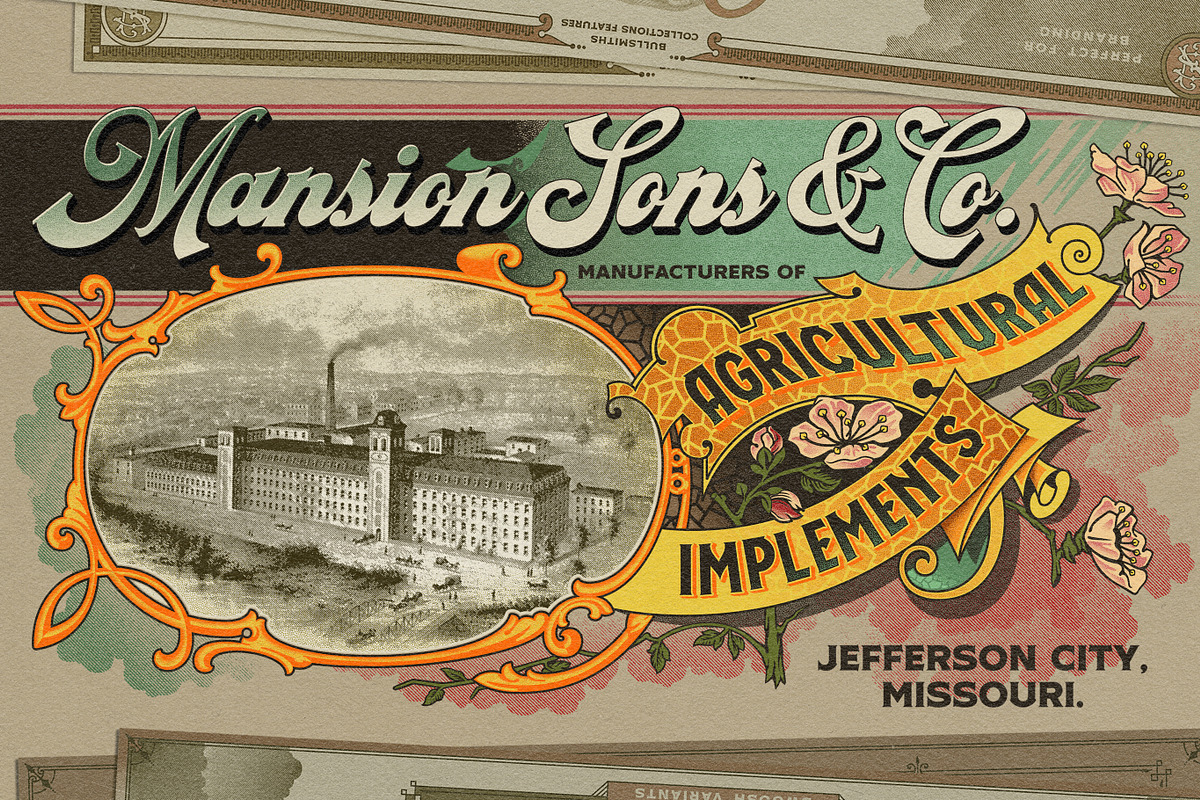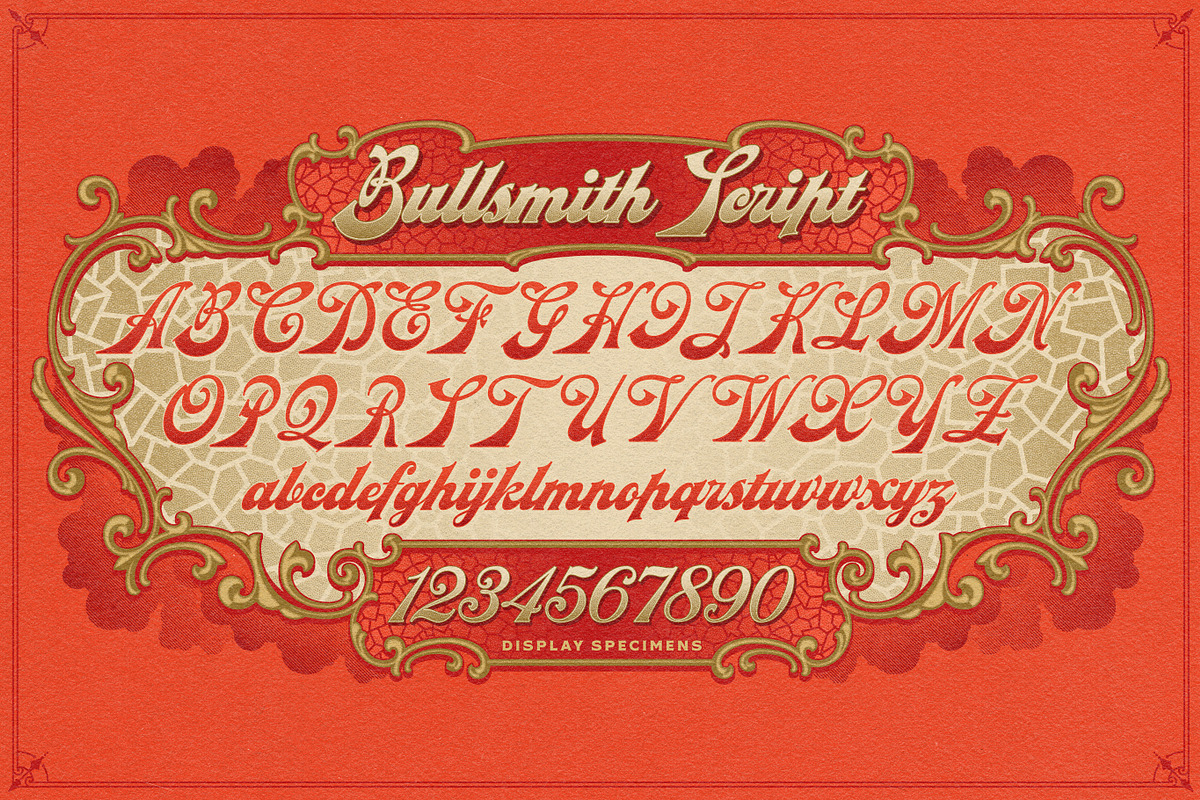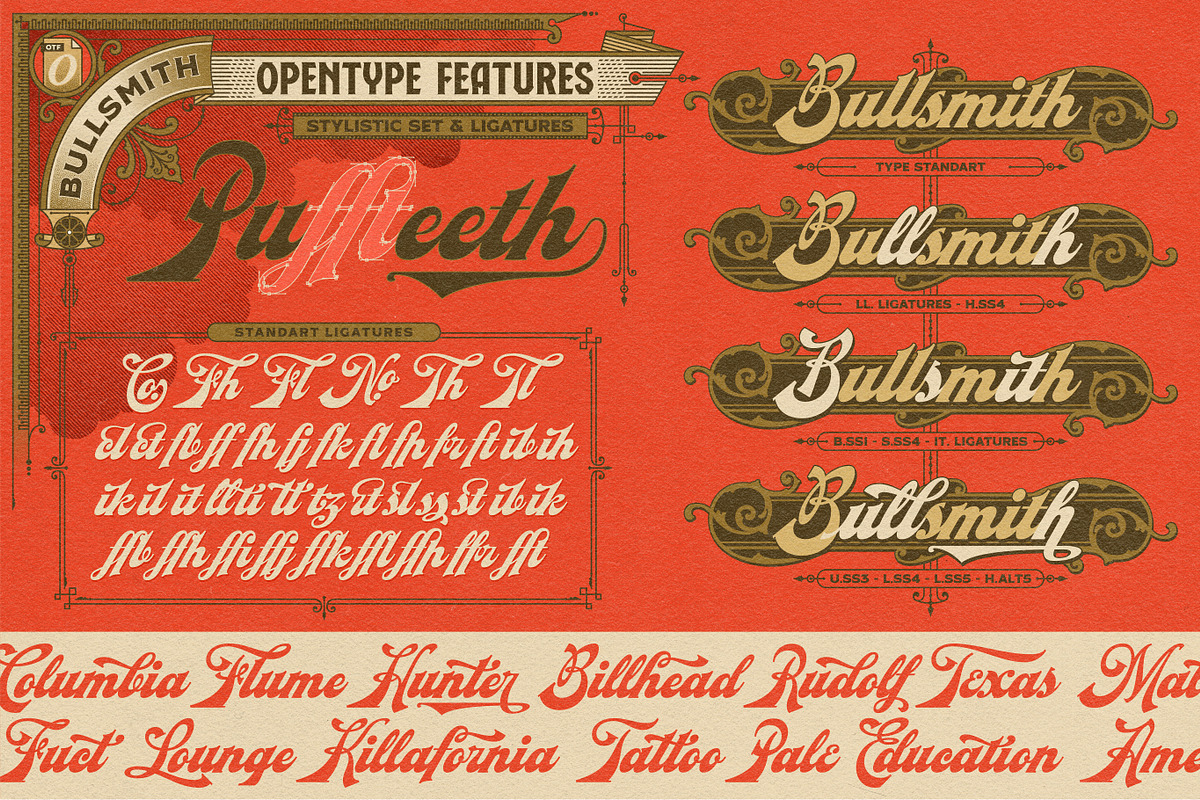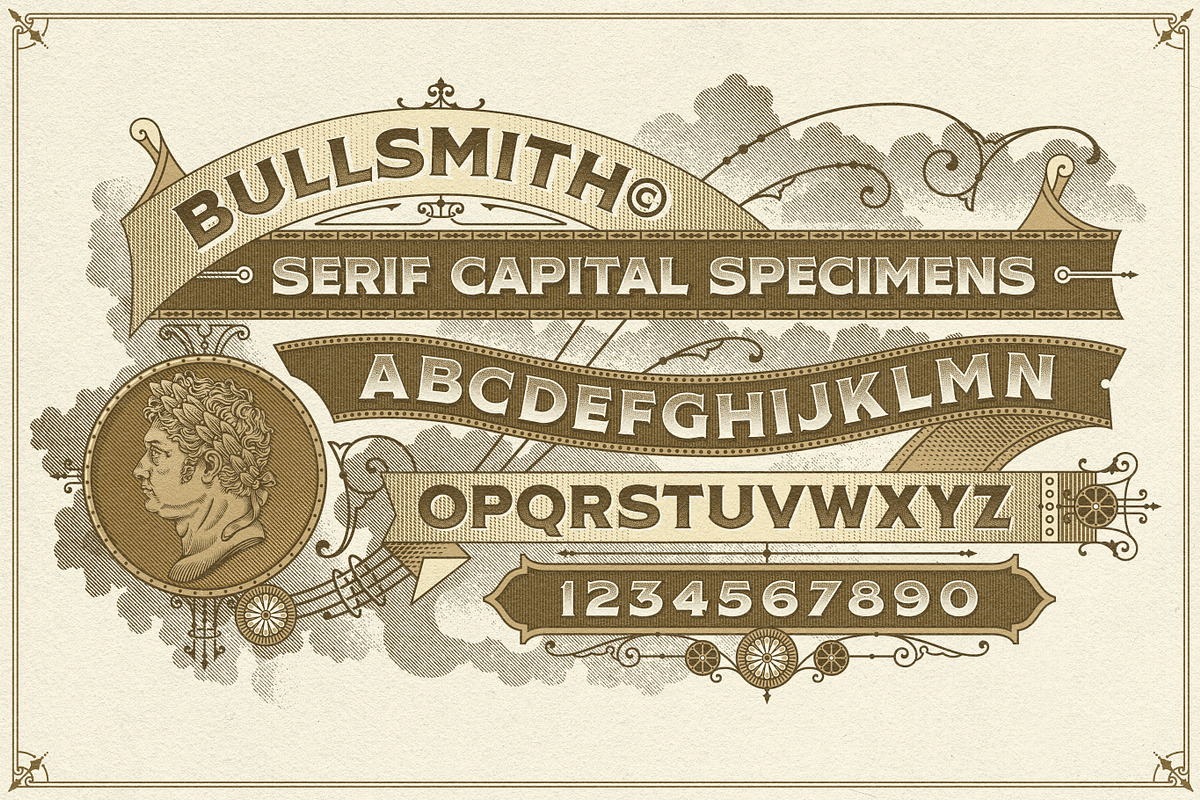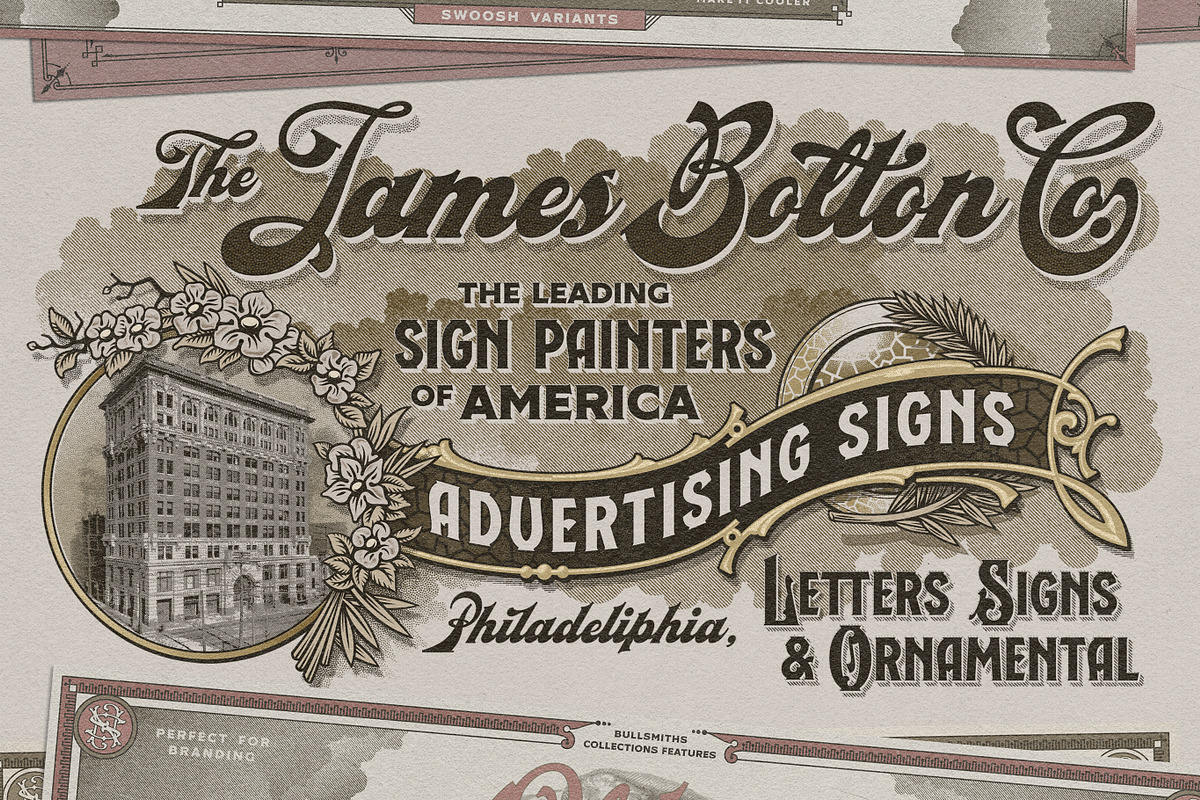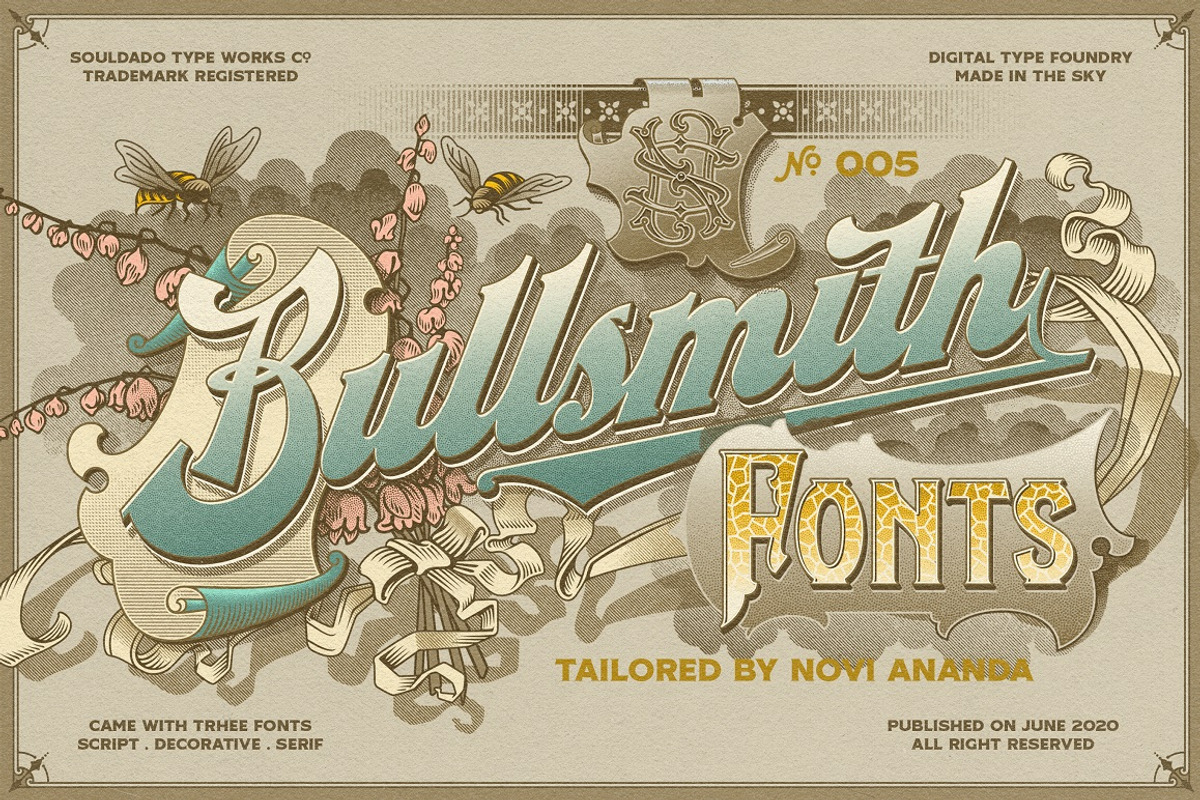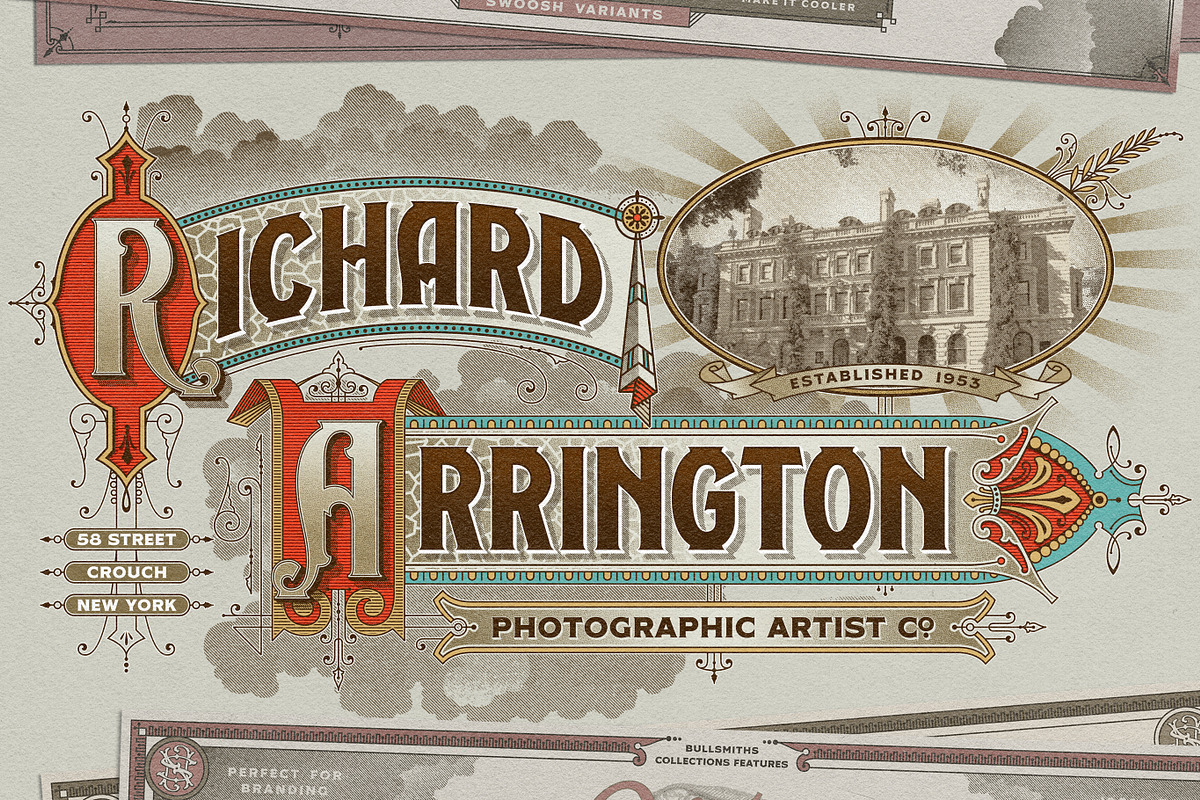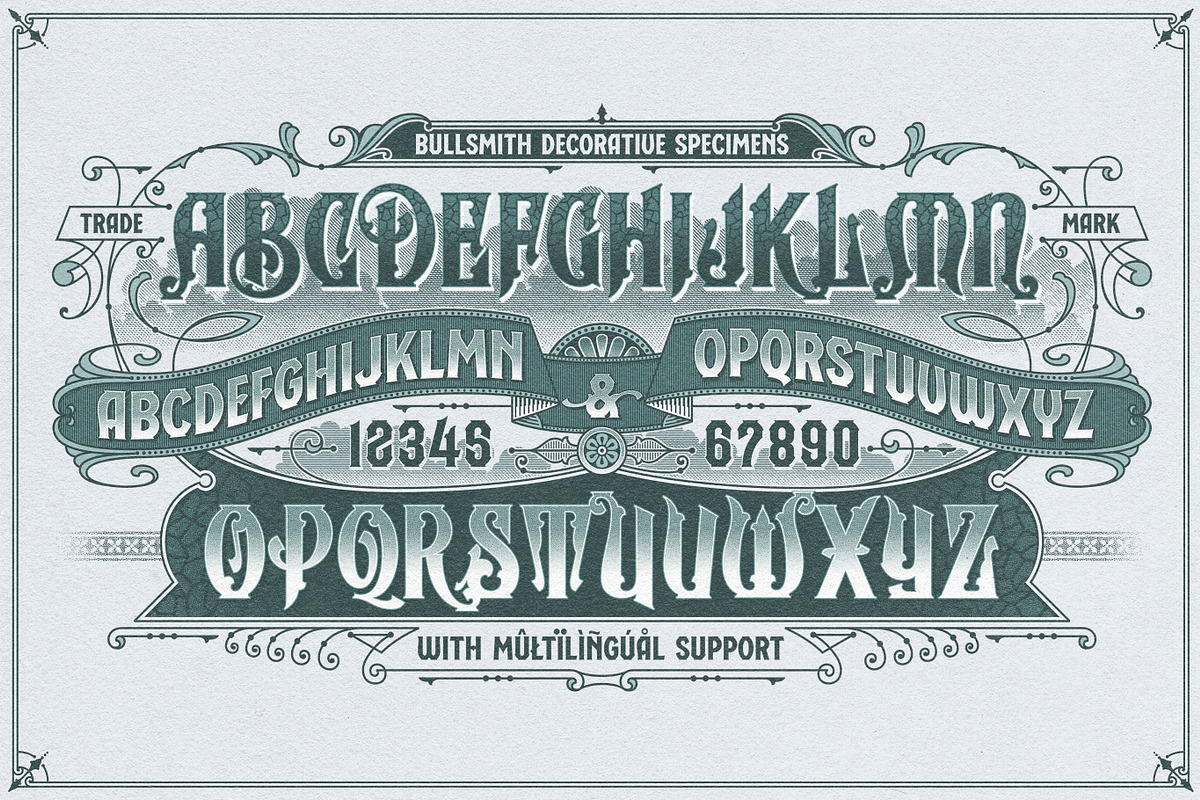
NS BULLSMITH Fonts
Bullsmith font collection, inspired by old style letterhead print, beer label, certificate, billhead, lithographic design and sign store. This font came with 3 styles, script, decorative and serif. With the combination from 3 fonts this is perfect to create label design, headline, logo types, signage, poster, certificate, all types of merchandise, book cover and many more application.
130+ Stylistic Alternate
Standard & Discretionary Ligatures
NS Bullsmith Decorative
NS Bullsmith Serif Capital